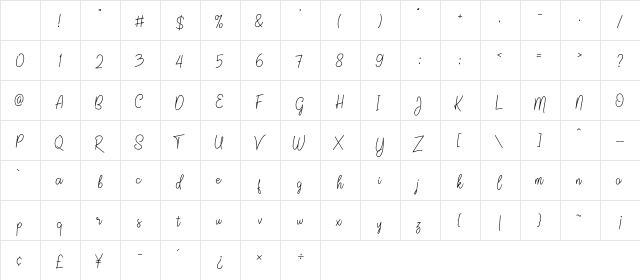
Complete Jalisco Script Demo Regular glyph index. Displaying only characters natively supported by Jalisco Script Demo Regular font.
Jalisco Script Demo flows with the natural rhythm of handwritten lettering, making it ideal for designs that call for warmth and personal expression.
Font Pairing: Combine Jalisco Script Demo with a simple geometric sans for maximum contrast - the tension between flowing curves and clean structure is a classic typographic pairing.
Pro Tip: Use Jalisco Script Demo for short runs of text - names, titles, or taglines. Extended body copy in script faces tires the eye quickly.